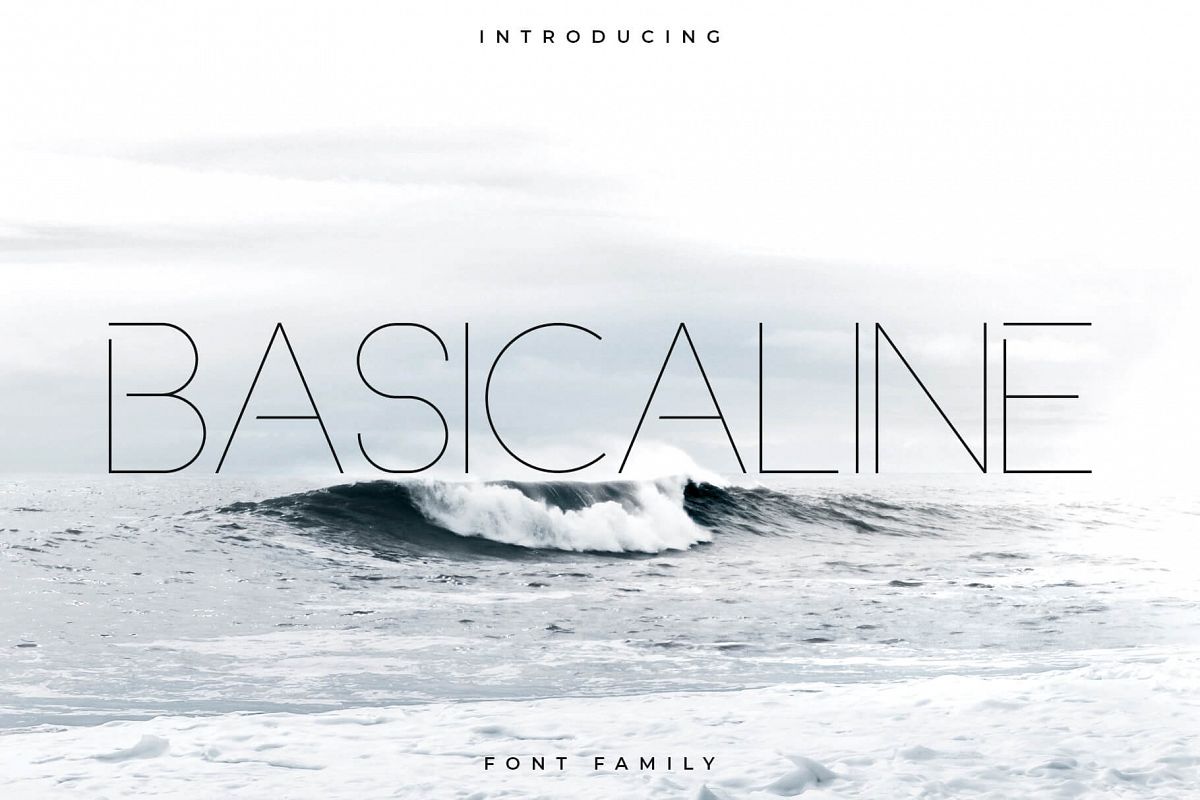
Basicaline Font Family - Sans Serif
Basicaline is an elegant and clean sans serif font. It's a versatile font family designed for strong, classic branding. Basicaline works great in any branding, logos, magazines, videos, product packaging, website headers, clothing designs and much more.